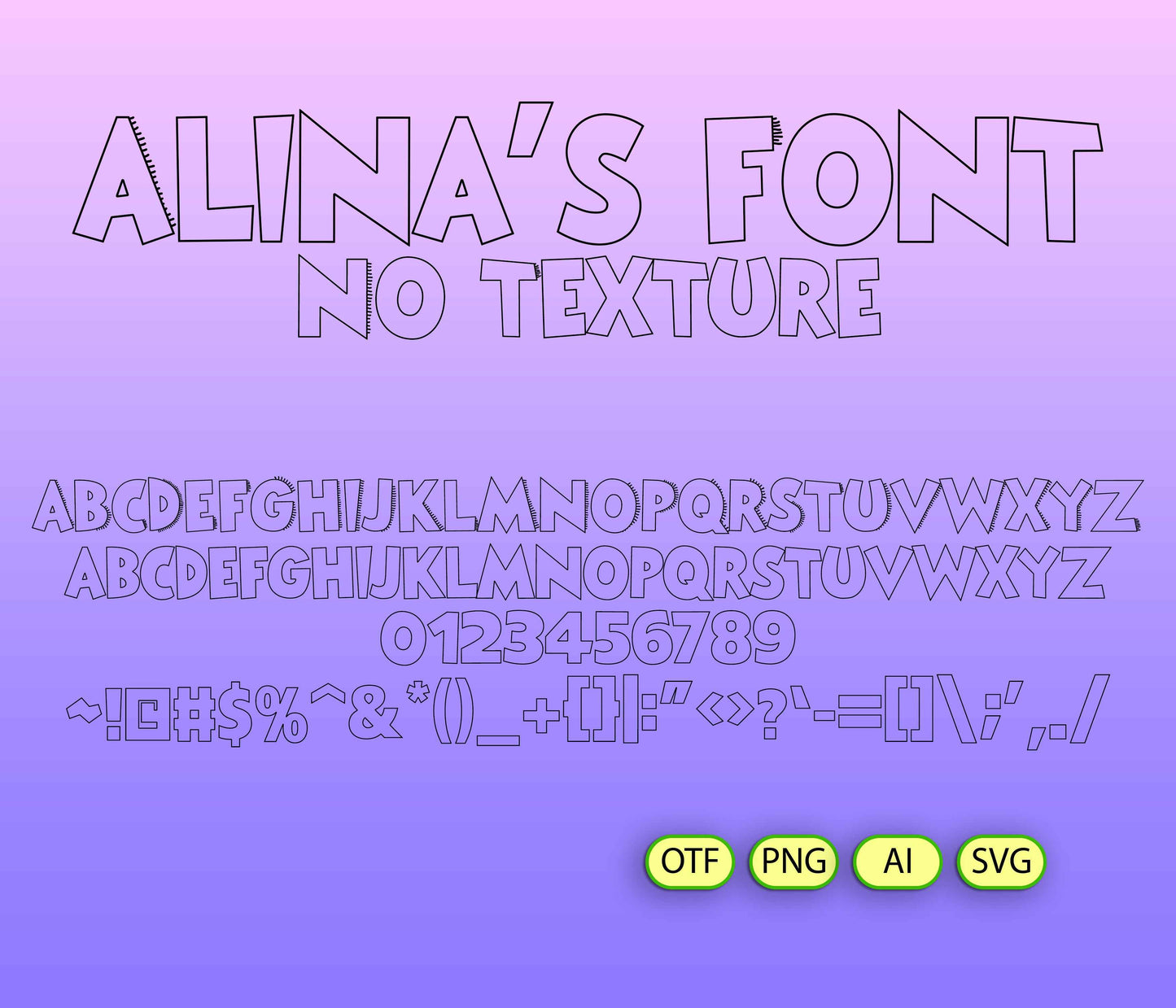
Latin Family Life Font
Step into the vibrant world of a large multicultural family with our specially designed font, capturing the essence of loving chaos and daily adventures. Perfect for fans, animators, event organizers, and designers, this font brings the energetic, heartwarming spirit of familia to your projects. Create event invitations, themed merchandise, or digital content with the lively energy of this beloved animated household.
Our Latin Family font features warm, bouncy characters reflecting the dynamic nature of this bustling household. Ideal for:
Many seek an online font generator to mimic the look of the Latin Family Font. Steer clear! No generator can match the quality of our font, which comes in two versions: a styled font and a simple version, perfect for cutting machines.
Our font pays tribute to the joyful chaos of family life, empowering your designs with its energetic and warm spirit. Whether crafting promotional materials, designing merchandise, or adding a familial touch to personal projects, this font communicates the loving essence of big family adventures. Ready to inject some familia fun into your creations? This font is your key to lively, impactful design.